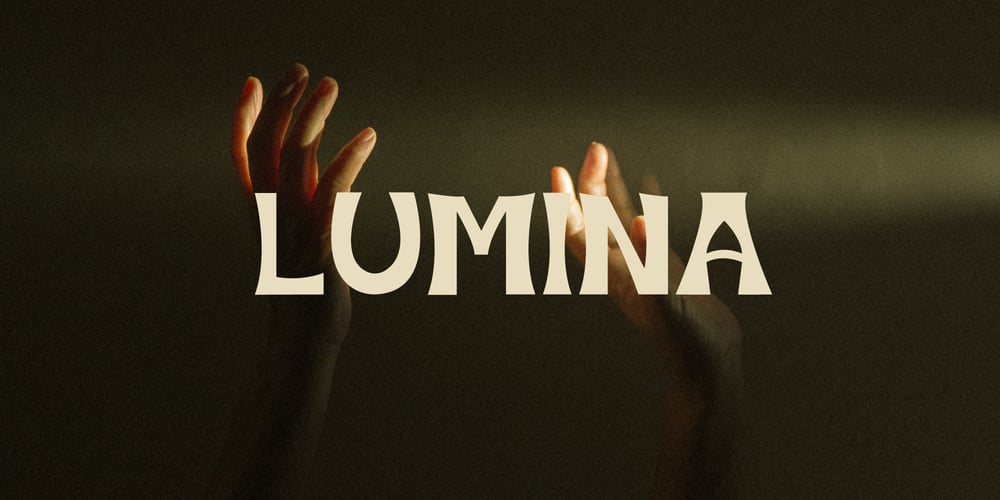
Lumina Font Family was designed by Bianca Souza and published by BXS Type. Lumina contains 1 styles and family package options. Lumina is a font that exudes sophistication and style. Combining modern and classic elements, it boasts a unique and distinctive look that sets it apart. This versatile font shines brightly in larger contexts, making it ideal for various design applications. Whether you’re working on a logo, web font, or looking to add a touch of elegance to your project, Lumina is the perfect choice. With its radiant presence, Lumina effortlessly elevates any design, adding a dose of charm to your visual creations.**Uppercase